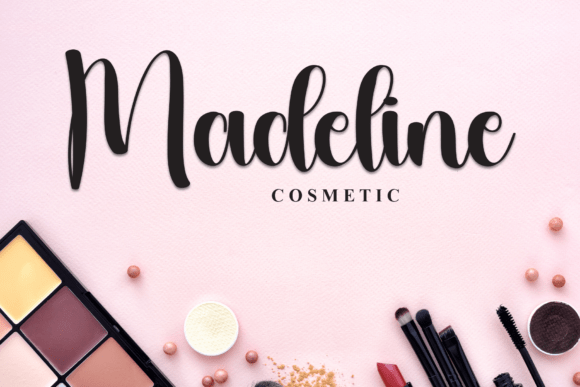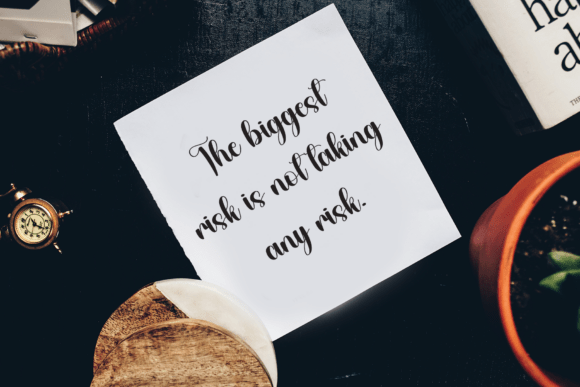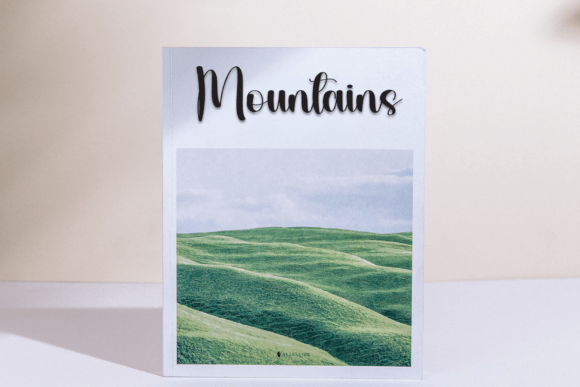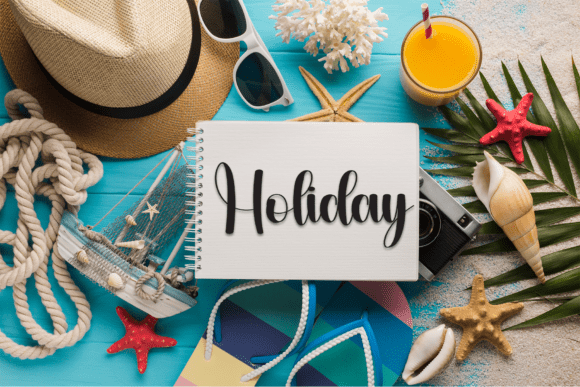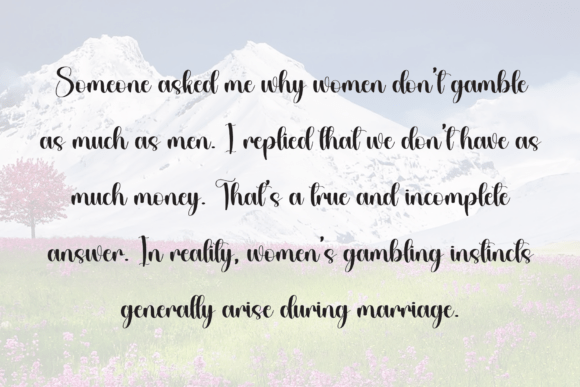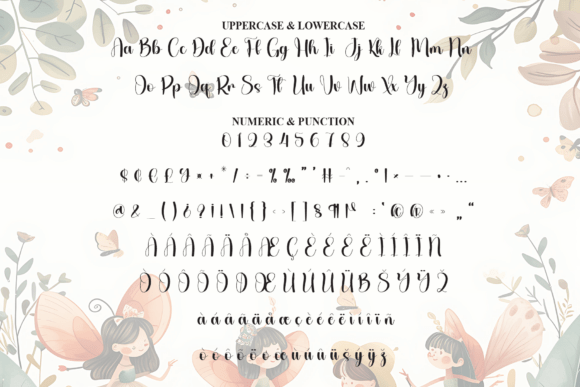
Discovering the Magic of Fairy Font
Have you ever sat down at your desk, staring at a blank page, and suddenly felt the urge to create something beautiful? Maybe it was a logo for a new business, a wedding invitation for a close friend, or a social media post to showcase your latest project. Whatever the inspiration, you know that the right font can make all the difference in bringing your vision to life.
That’s where Fairy Font comes in – a stunning script font that captures the essence of hand-drawn calligraphy with a modern twist. With its elegant strokes and fluid curves, it adds a touch of sophistication and refinement to any design. Whether you’re a seasoned designer or a creative enthusiast, Fairy Font is the perfect tool to elevate your work and make it truly special.
Fairy Font Key Features
- Unique Characteristics: Fairy Font features a whimsical and elegant design, with intricate details and flourishes that evoke a sense of magic and fantasy.
Fairy Font Review
I’ve had the chance to play around with the Fairy Font, and I must say, it’s a unique addition to any design project. ✨ The font’s whimsical nature and delicate lines make it perfect for creating magical and dreamy vibes. It’s especially great for branding and marketing materials that want to stand out from the crowd.
- ✨ Beautifully designed with intricate details
- ✨ Excellent for creating a sense of wonder and enchantment
- ✨ Works well in digital and print formats
However, I do have a few concerns. ⚠️ The font can be quite ornate, which may make it difficult to read for some users. Additionally, the font’s size and spacing can be tricky to work with, especially when trying to create multi-line text. ⚠️ I’ve also noticed that the font doesn’t have a complete character set, which may limit its use in certain contexts.
Overall, I think the Fairy Font is a great choice for designers who want to add a touch of magic to their projects. While it may have some limitations, its unique charm and beauty make it a valuable addition to any design library. With a bit of careful planning and consideration, I think this font can really help designers stand out from the crowd.
Fairy Font is commonly used in:
- Children’s book illustrations.
- Wedding invitations and decorations.
- Marketing and advertising materials.